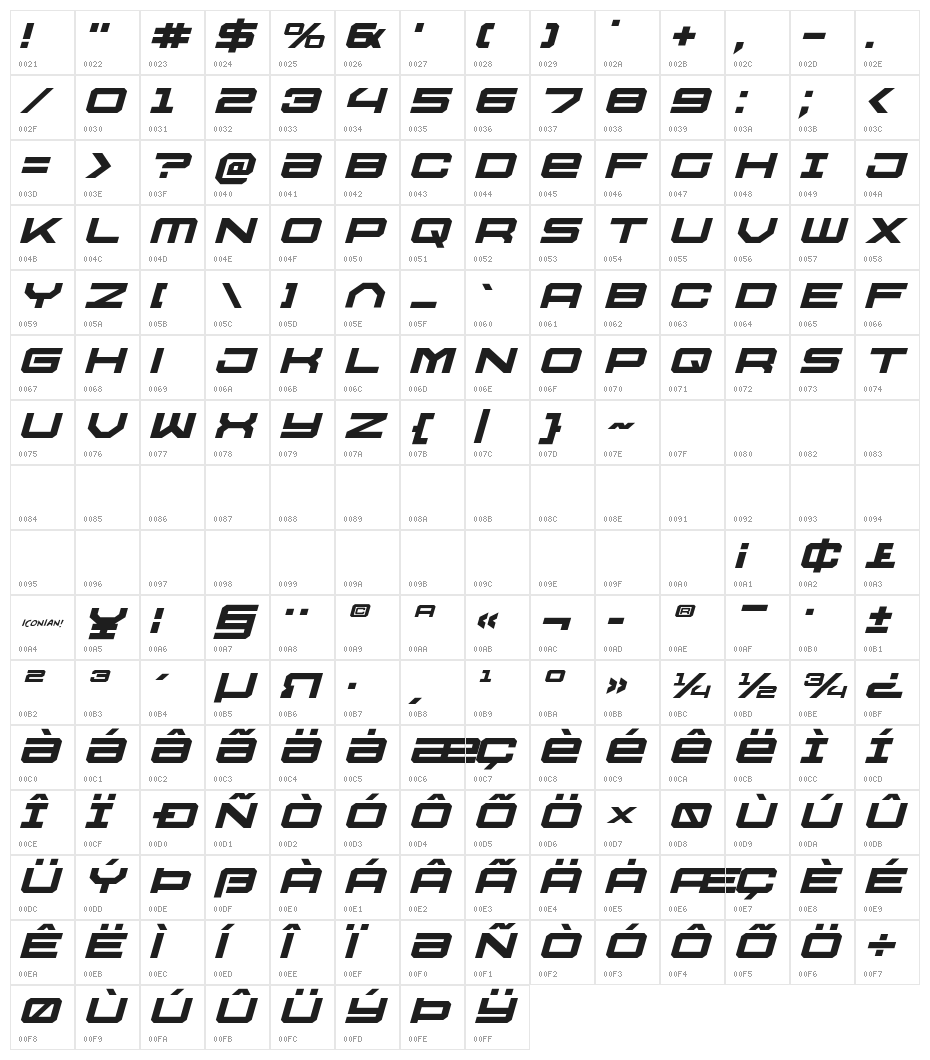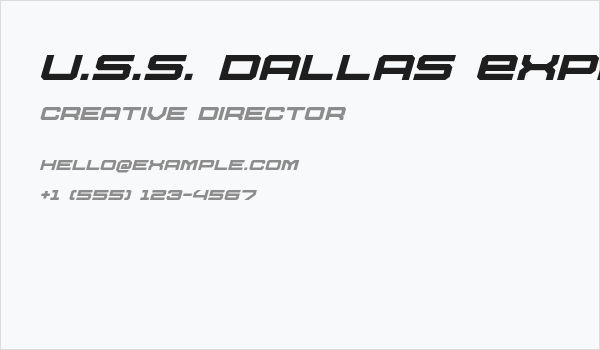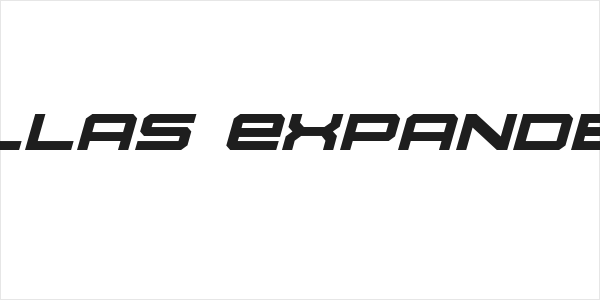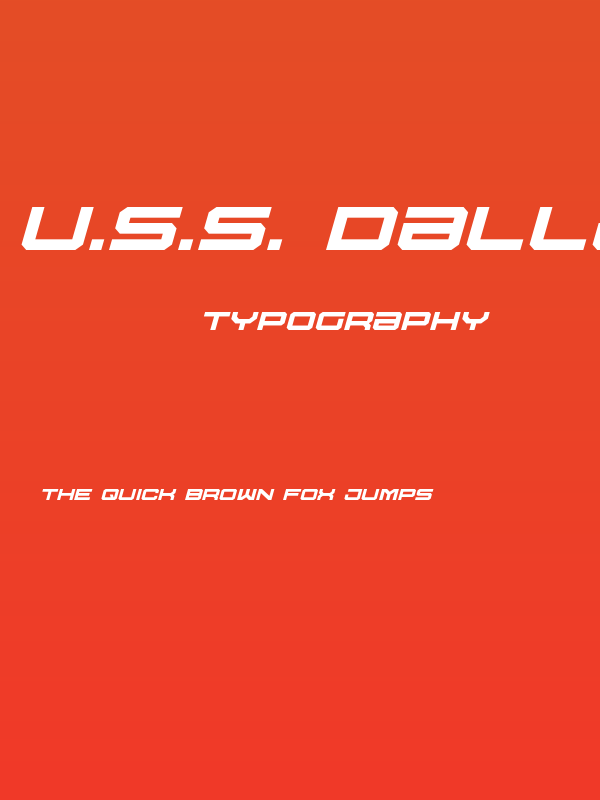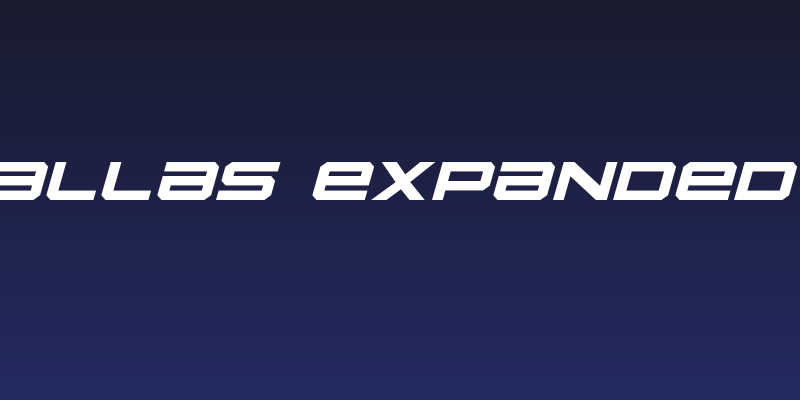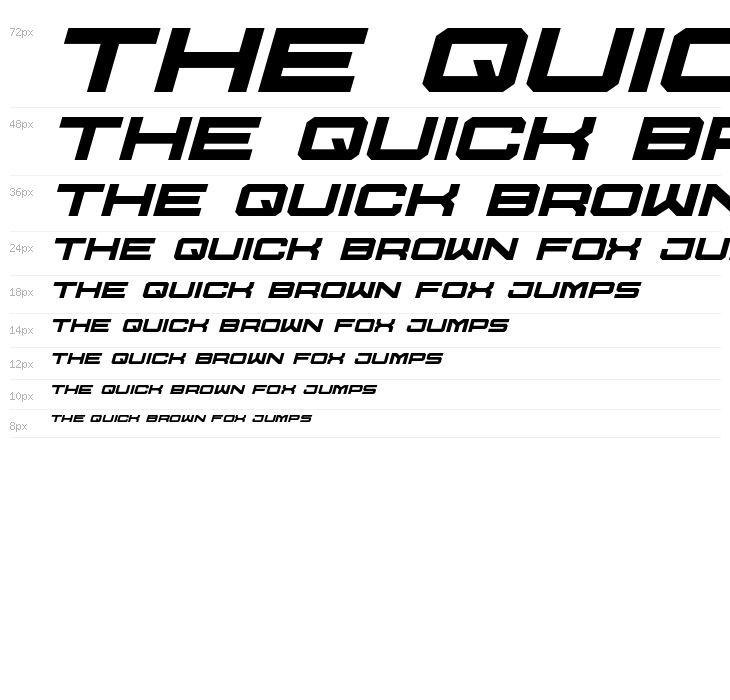
U.S.S. Dallas Expanded Italic Font
U.S.S. Dallas Expanded Italic Description
This font features a bold and dynamic style with an italicized slant, giving it a sense of motion and energy. The characters are expanded, providing a wide stance that enhances readability while maintaining a futuristic and sleek appearance. The strokes are consistent in thickness, offering a medium contrast that balances the boldness with clarity. The geometric shapes and sharp angles contribute to a modern and technical aesthetic, making it suitable for projects that require a contemporary and assertive look.
| Use Case | Logos, Headlines, Branding |
| Proposed Projects | Ideal for technology branding, sports team logos, automotive designs, and futuristic-themed posters. |